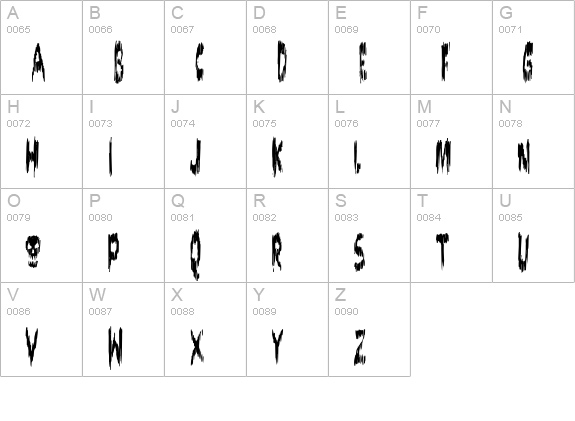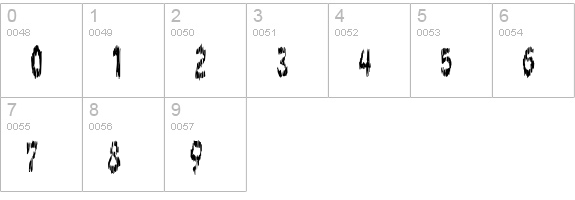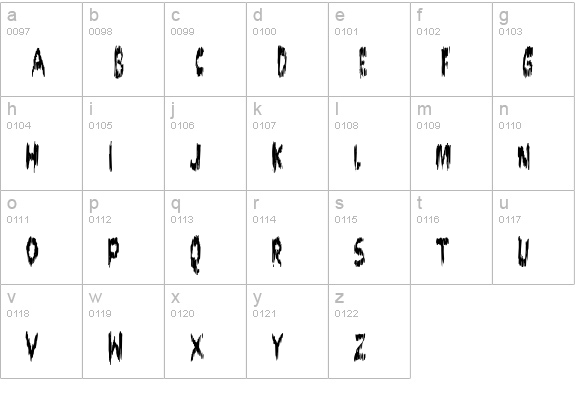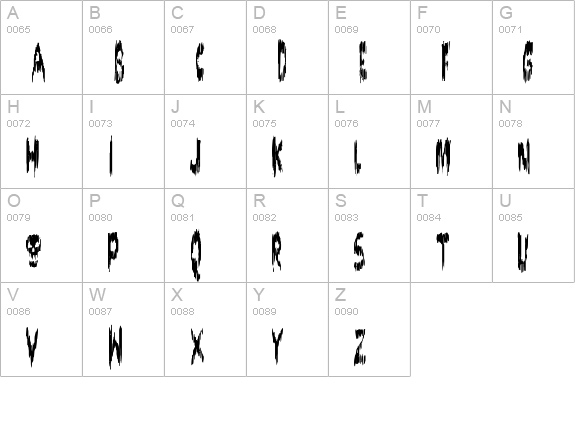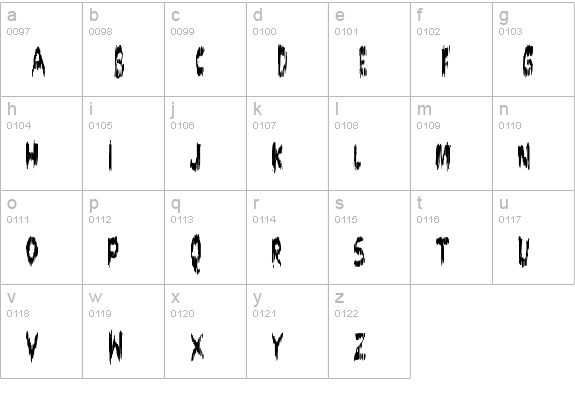
DOKTOR terror Font Details
DOKTOR terror font is a striking and bold typeface that exudes a sense of mystery and intrigue. With its sharp edges and unique design, this font is perfect for creating eye-catching headlines, posters, and branding materials. The DOKTOR terror font commands attention and adds a touch of drama to any design project. Best of all, DOKTOR terror font is available for free download at FontsMarket.com. Whether you're a designer looking to add some edge to your work or a hobbyist seeking a font with a twist, DOKTOR terror font is the perfect choice. Don't miss out on this opportunity to elevate your designs with this captivating and freely available font.